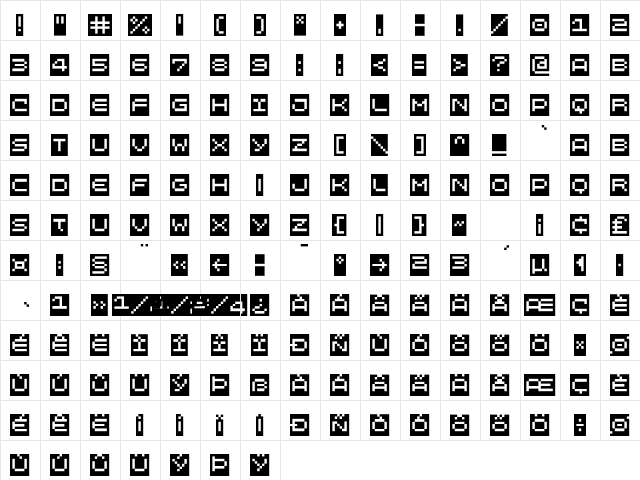
LomoWebStrip LT Std 6 Regular
| Foundry | Linotype Library GmbH |
| Designer | Fidel Peugeot |
Design Context for LomoWebStrip LT Std 6 Typeface
LomoWebStrip LT Std 6 takes a measured approach to typography — its balanced proportions and neutral character make it a reliable workhorse for both digital and print work. The delicate stroke weight brings airiness and refinement to layouts.